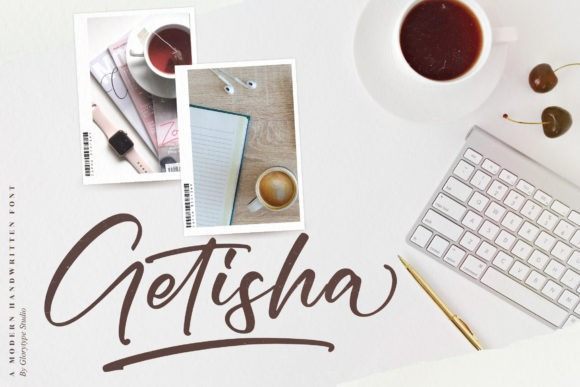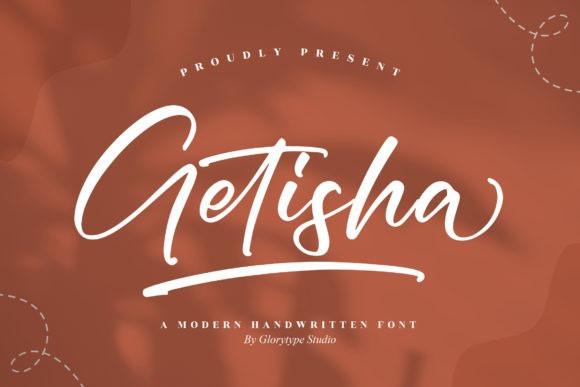
Getisha Script Font
Getisha Script Font, is a stylish and adaptable script font. It is PUA encoded which means you can access all of the glyphs and swashes with ease! Add it confidently to your projects, and you will love the results.